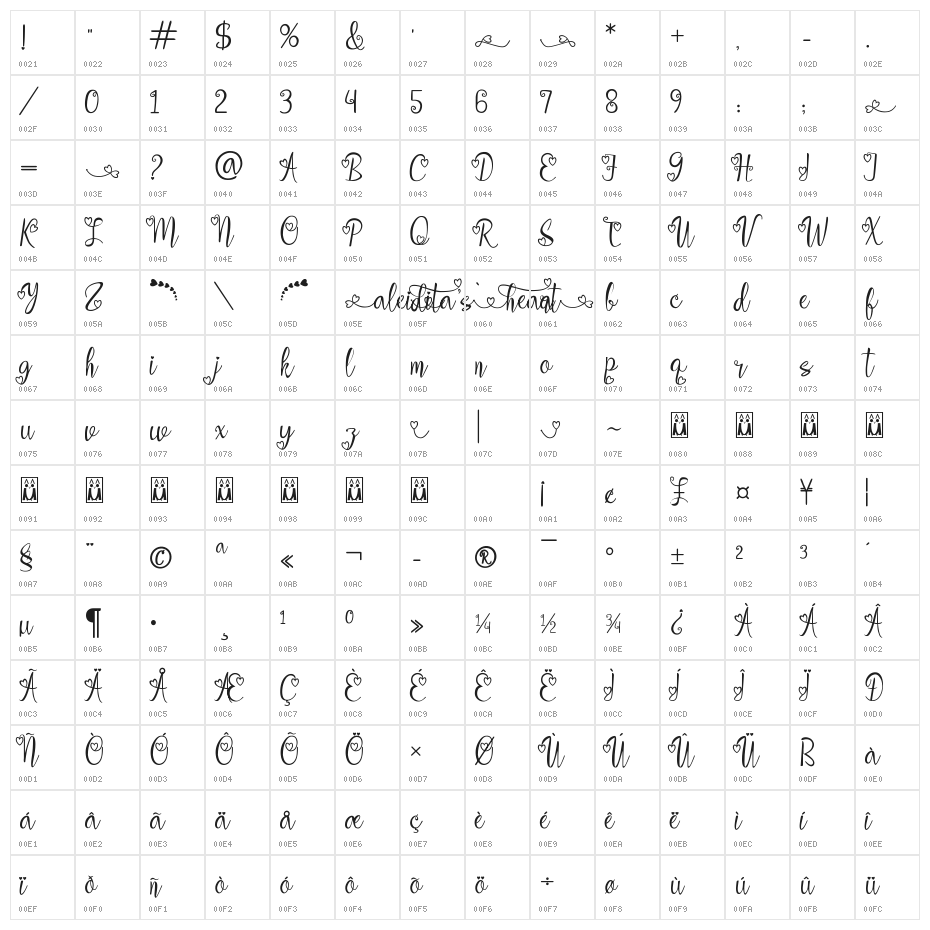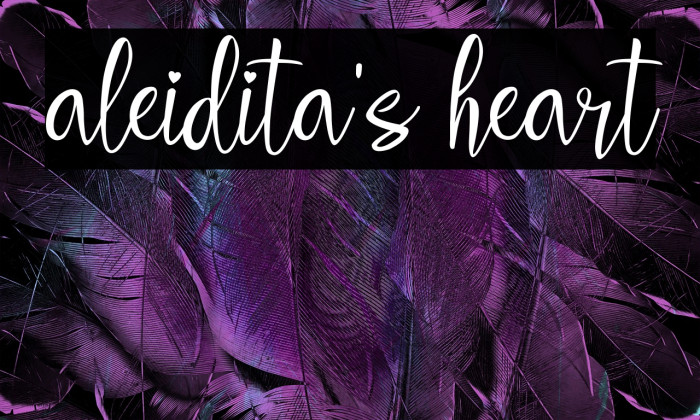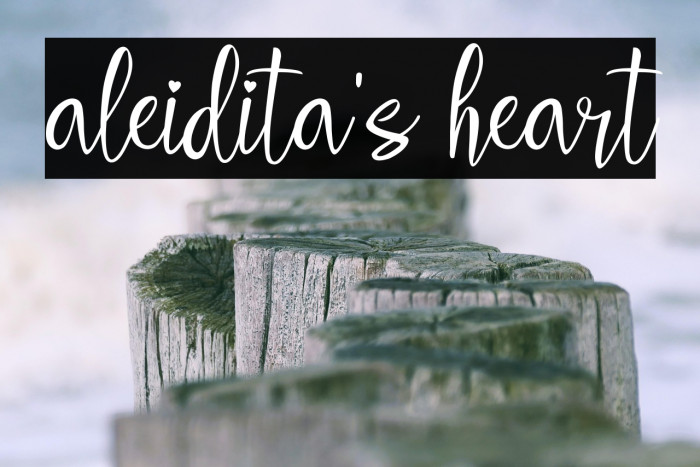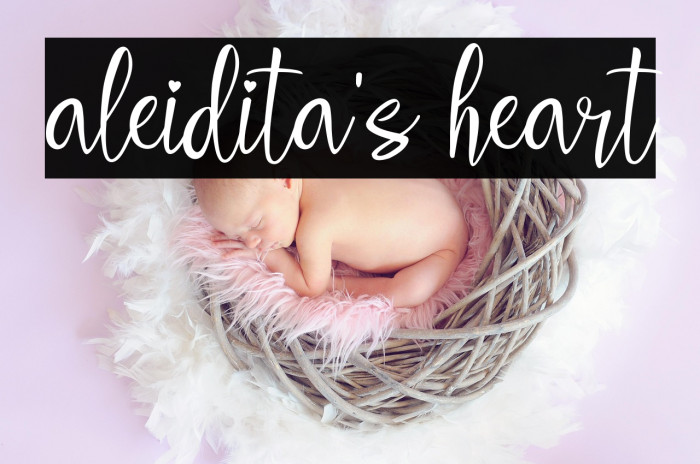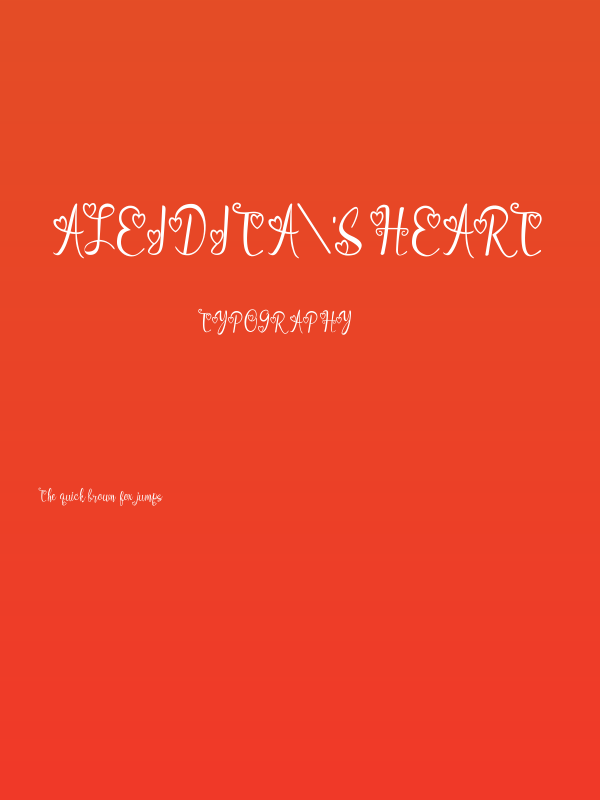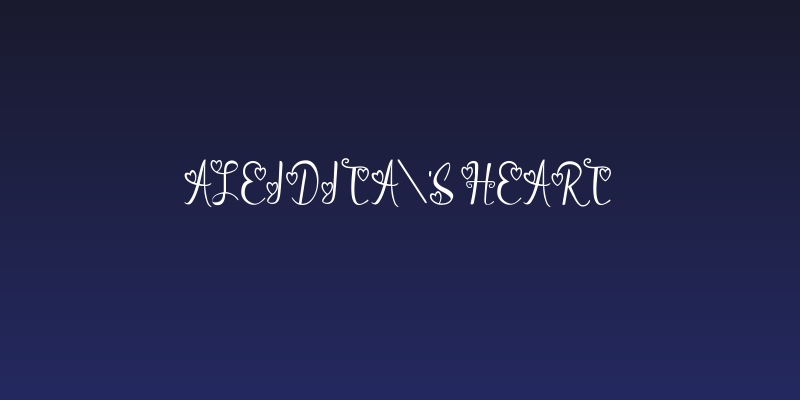
aleidita's heart Font
aleidita's heart Description
This playful and decorative font features a whimsical design with heart motifs integrated into the letters, creating a charming and romantic feel. The uppercase and lowercase letters are crafted with a flowing, script-like style, while the numbers and special characters maintain a consistent, cohesive look. The font's unique character is highlighted by its smooth curves and elegant swirls, making it ideal for projects that require a touch of elegance and creativity. The heart elements add a distinctive flair, perfect for love-themed designs or playful branding. Its overall appearance is both modern and decorative, appealing to those looking for a font that stands out with personality.
| Proposed Projects | Ideal for wedding invitations, romantic greeting cards, playful branding, and decorative posters. |